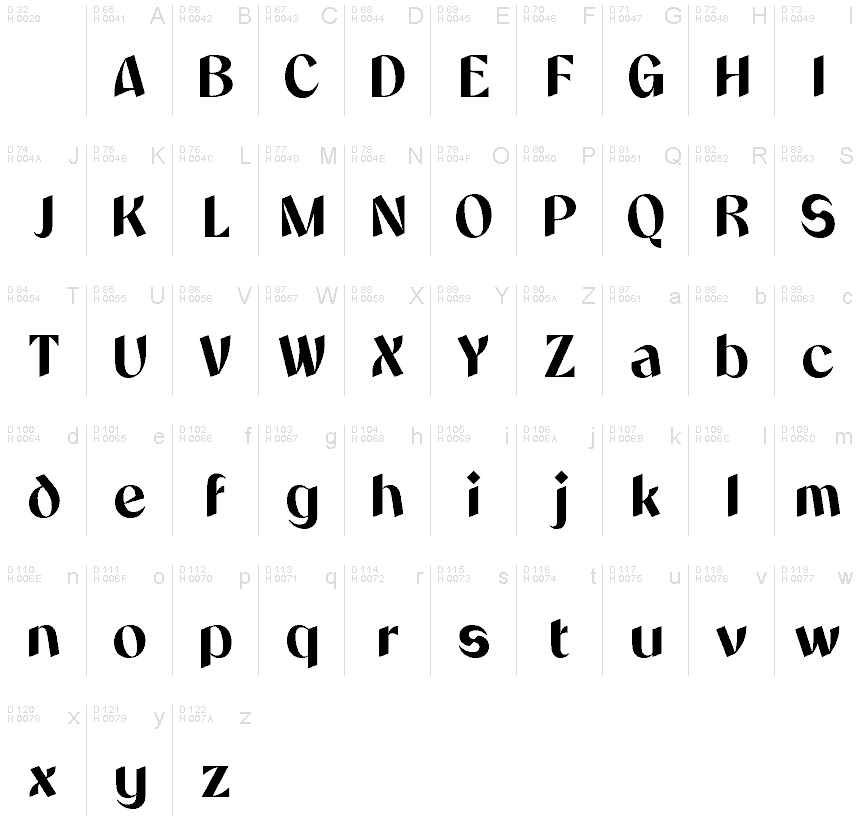
CS Kaison Regular Demo
CS Kaison font by Craft Supply Co. is an ornate and elegant display font that combines a modern twist with the classic sophistication of serifs. Expressive in form, this font displays a unique balance between traditional style and contemporary design elements making it eye-catching and distinctive for all who read it.